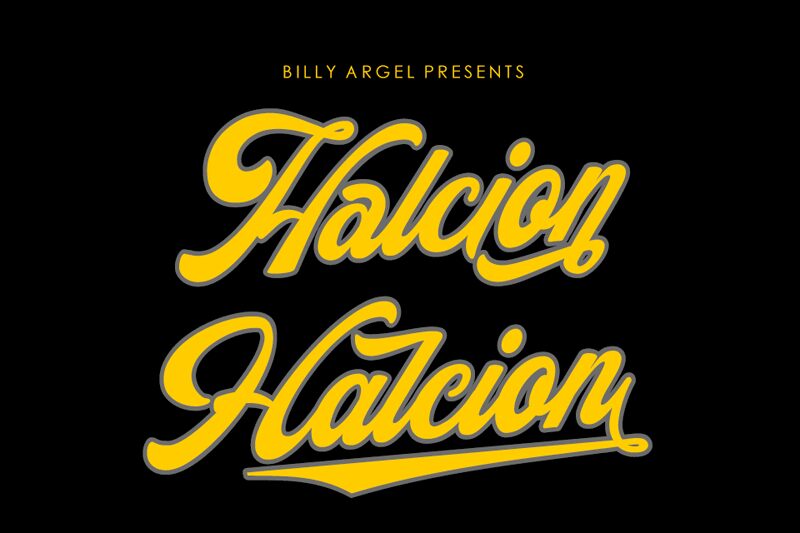
HALCION PERSONAL USE Italic
Halcion Italic font is a stunning old school script typeface designed by Billy Argel.
Two layered fonts.
Ligatures.
10 different swashes, for activated underline + number (_1)
Stylistic alternates in lowercase and uppercase.
Swashes in all lowercase letters at the end of words.